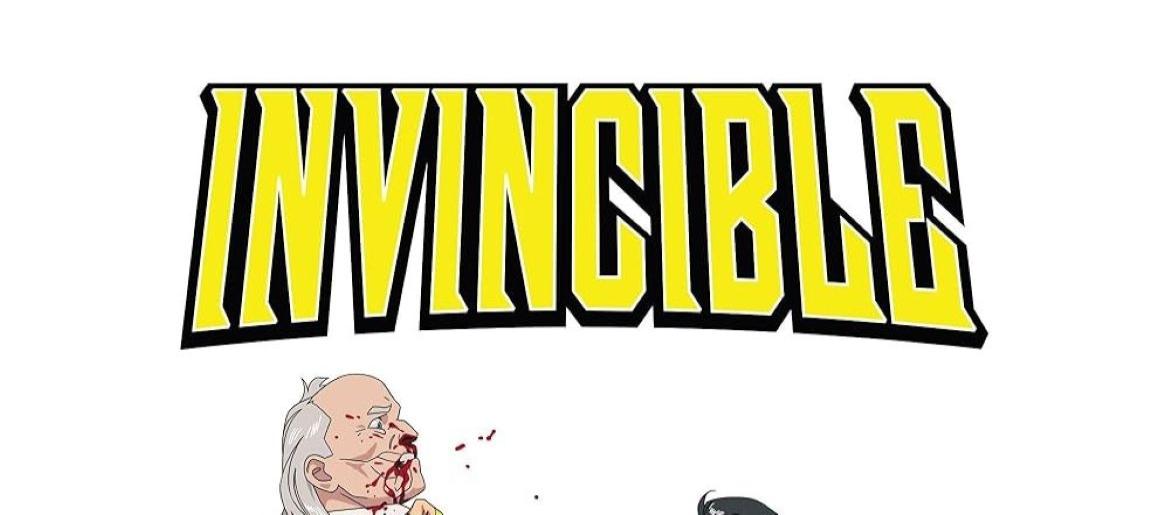
Invincible Font
The Invincible font captures the bold, heroic energy of the animated series Invincible. Its sharp edges and strong presence make it perfect for projects that require a fearless, dynamic look. Whether used for posters, logos, or fan art, the font delivers an impactful visual statement that conveys strength and resilience.
Designers appreciate how the font blends modern comic style with classic superhero aesthetics, creating versatility for creative work that demands both excitement and readability.